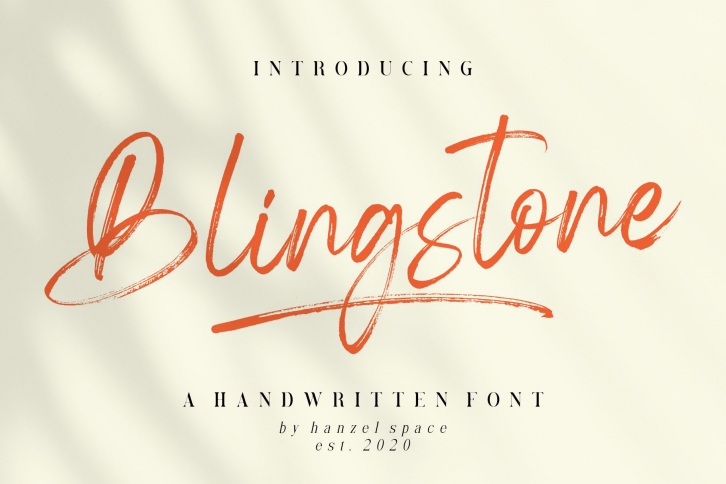
Blingstone - Handwritten Font. Made from natural pen.
it will make your design project more beautiful.
The font is suitable for any design like branding, logo, tagline, fashion,
print template, quotes, wedding and etc.